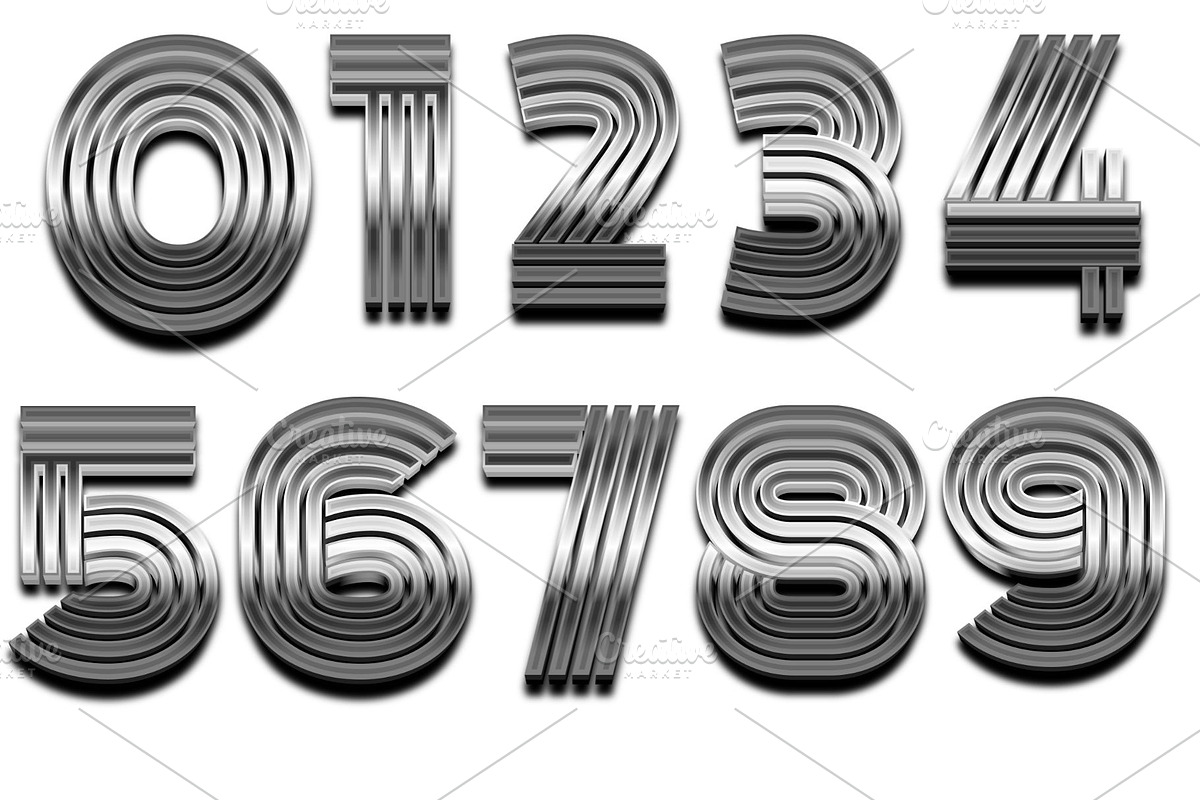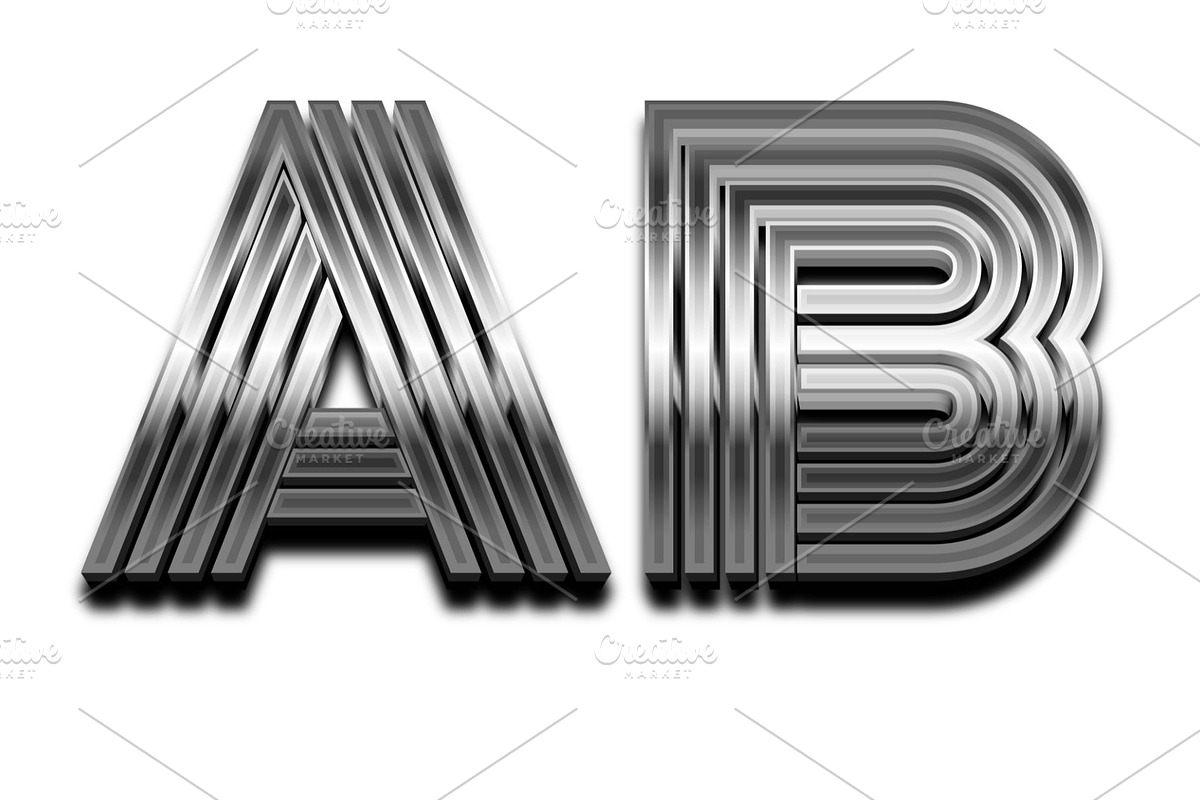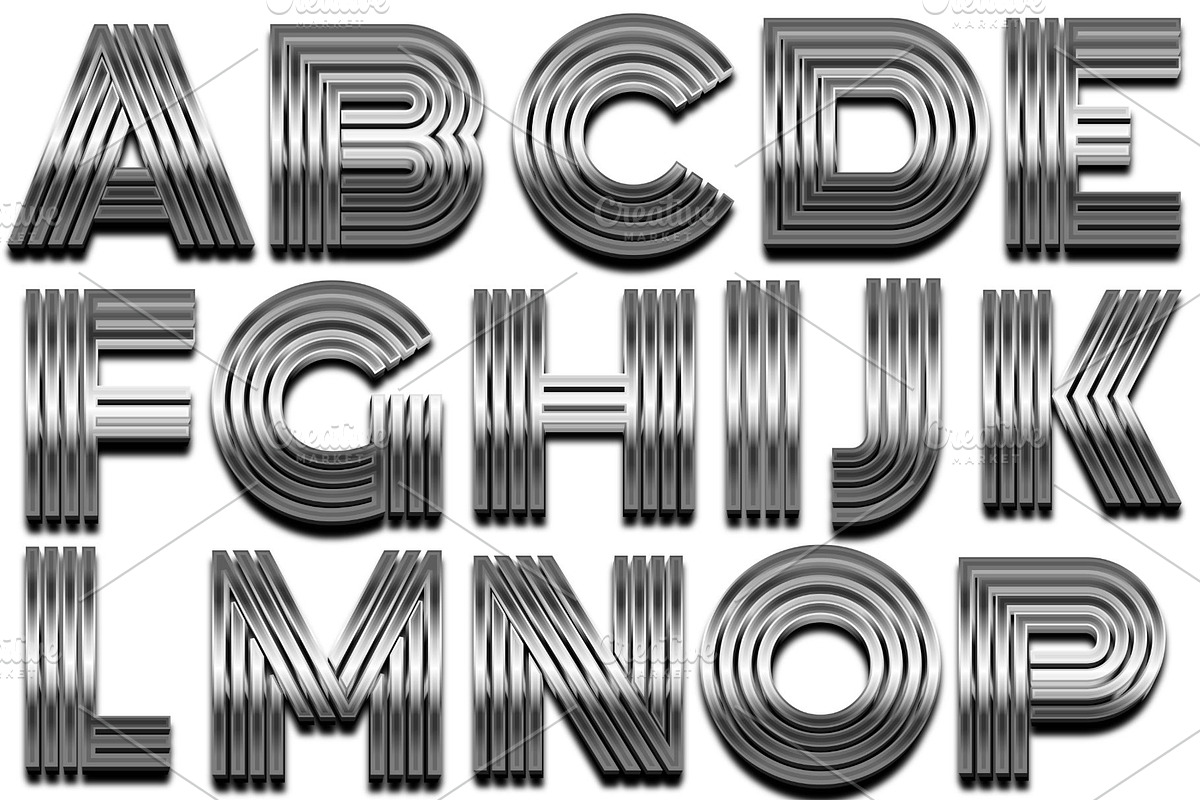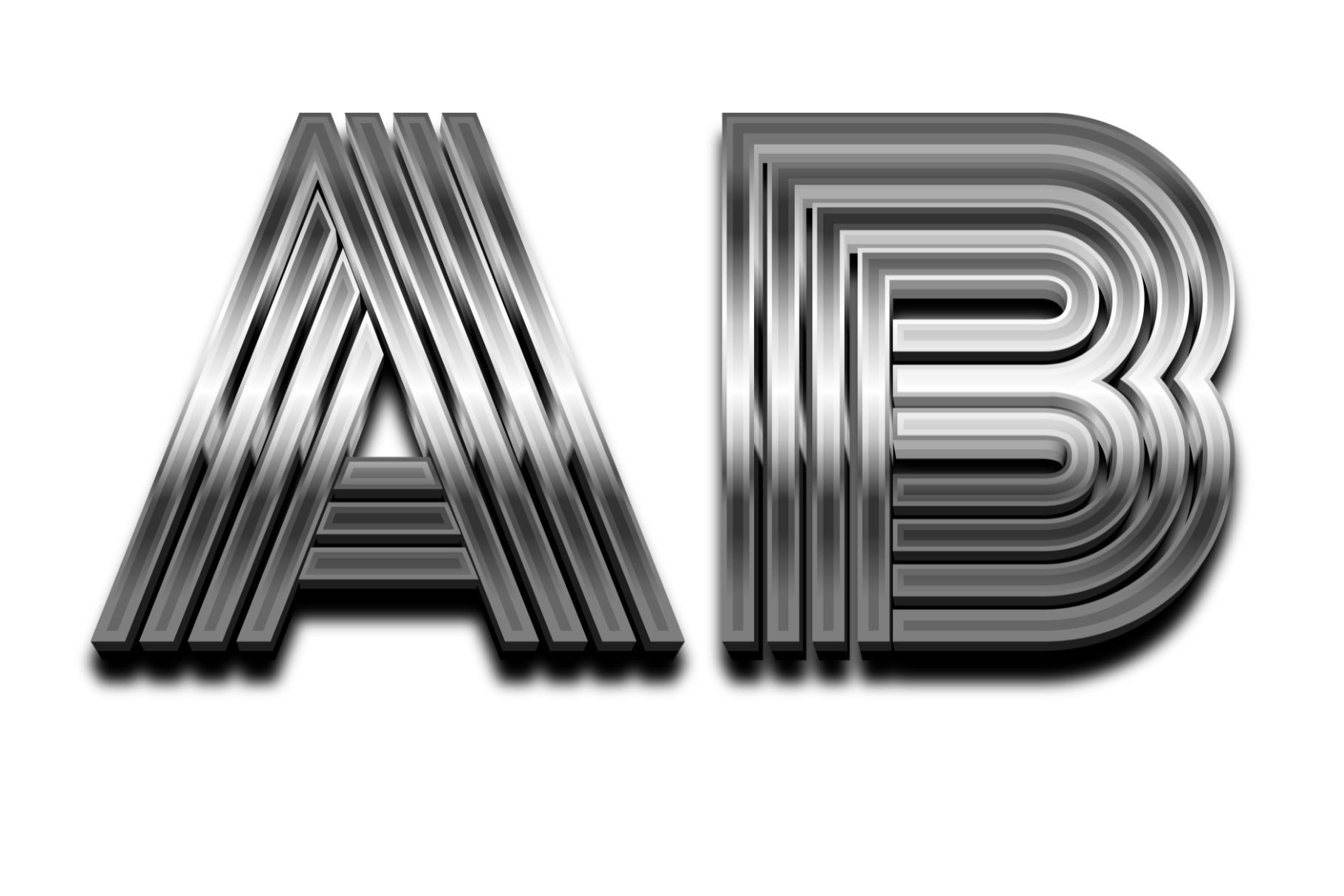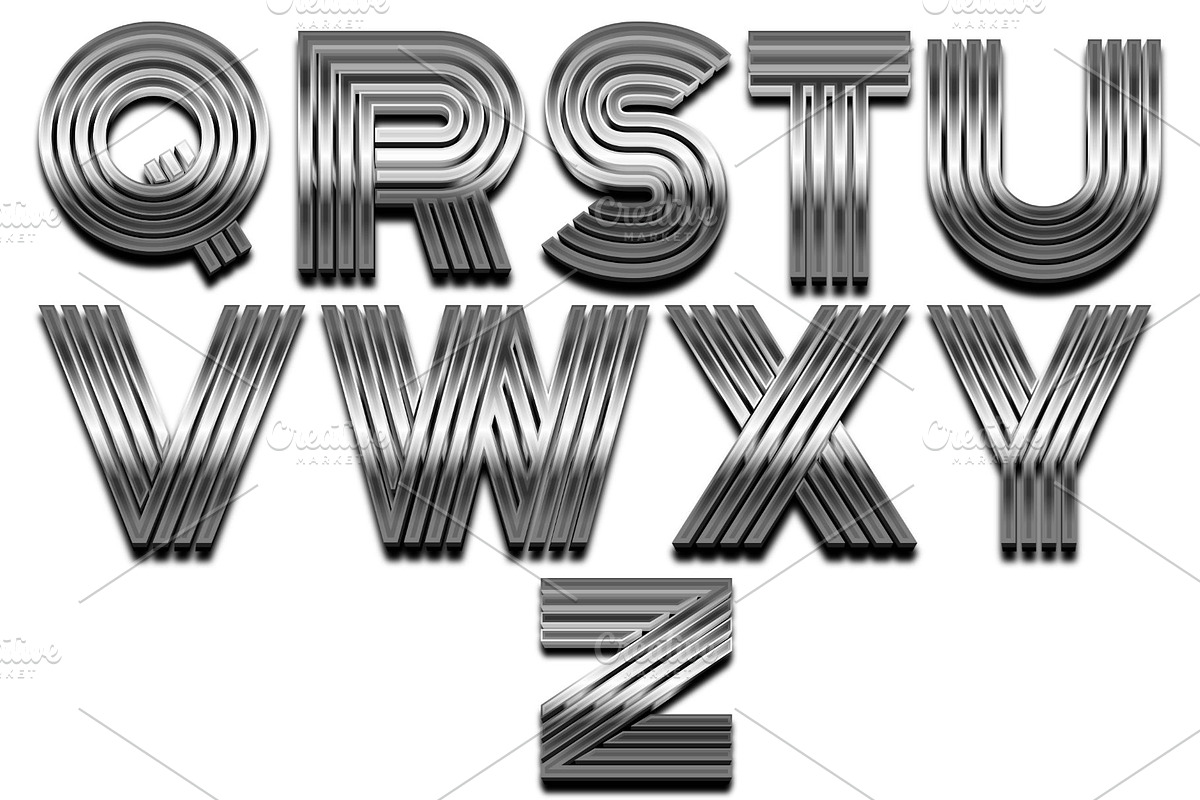
Chrome Striped 3D Metallic Font
Chrome Striped 3D Font Clipart - Metallic Groovy Alphabet, Retro Futuristic Letters & Numbers, Transparent PNG, Industrial Text Effect, Disco Typography
Give your designs an instant dose of retro-futuristic cool with this striking Chrome Striped 3D Font Clipart bundle! This dynamic collection features a complete uppercase alphabet and numbers, all rendered with a bold, reflective chrome finish and distinct horizontal stripes, giving them a powerful three-dimensional and textured look.
Each character pops with a sleek, metallic sheen and a groovy, industrial vibe, perfect for capturing the essence of the 70s, 80s, disco, or a modern, high-tech aesthetic. Ideal for album covers, event posters, gaming graphics, or any project that needs strong, eye-catching, and memorable typography. The high-resolution PNG format ensures crisp detail and easy integration into your creative work, making your text stand out with unparalleled metallic flair.
- Complete Uppercase Alphabet (A-Z): All 26 letters with a chrome striped 3D effect.
- Numbers (0-9): Matching sleek, metallic digits.